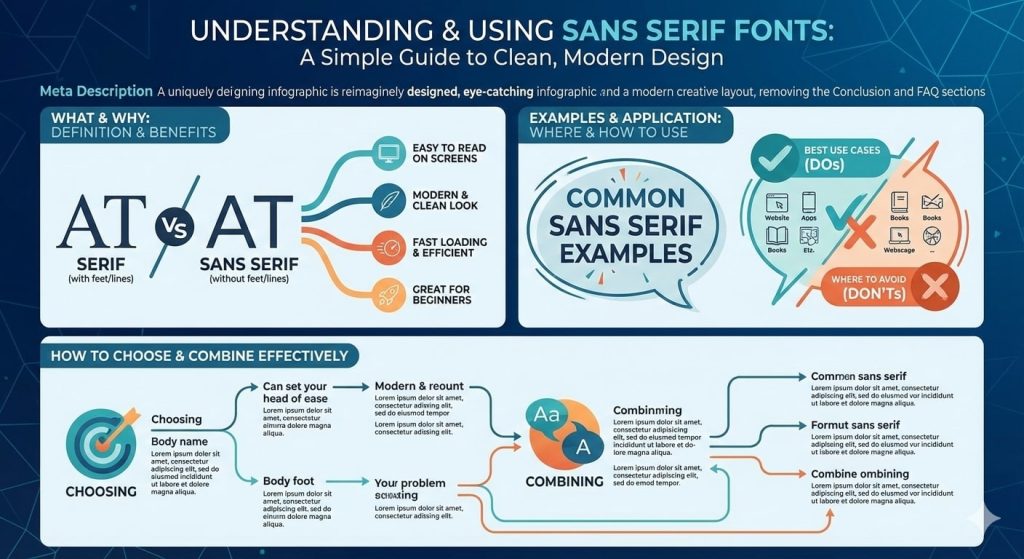
How I Understand Sans Serif Font Examples And Use Them Easily
I think this guide helps you understand sans serif font examples in a simple way so we learn how these fonts look and how we use them to create clean and readable designs easily
I think fonts play a very important role in design and reading. When I started learning about fonts I noticed that some fonts look clean and easy while others feel heavy. Sans serif fonts were the first fonts that helped me understand clean design. I think that if we want our text to look modern and easy then we should learn about sans serif font examples.
In this guide I will share my personal experience and explain everything in a very simple way. We will learn what sans serif fonts are, how they look and where we should use them.
What Are Sans Serif Fonts
I think sans serif fonts are fonts that do not have extra lines at the ends of letters. These fonts look smooth, clean and straight. If you look at letters like A or T you will see that there are no small decorations.
We use sans serif fonts because they are easy to read on screens. Phones, computers and websites mostly use these fonts.
Why Sans Serif Fonts Are So Popular
I think these fonts are popular because they are simple and modern. Many big brands use them because they look professional.
Sans serif fonts are popular because They are easy to read They look clean They work well on screens They feel modern
If we want clear communication then we should use these fonts.
Common Sans Serif Font Examples
I think examples help us understand better. These are some common sans serif fonts that many people use.
Arial Helvetica Verdana Tahoma Calibri Roboto
These fonts are used in websites, apps, documents and mobile screens.
How Sans Serif Fonts Look
I think sans serif fonts look straight and balanced. Letters feel open and friendly. If text is small these fonts still stay readable.
That is why we see them everywhere online.
Where We Should Use Sans Serif Fonts
Websites
Sans serif fonts are best for websites because they load fast and read easily.
Mobile Apps
Phones use these fonts because screens are small.
Presentations
Slides look clean and professional.
Social Media
Text becomes easy to read on posts and banners.
User Interfaces
Menus buttons and labels use these fonts.
Where We Should Avoid Sans Serif Fonts
We should avoid sans serif fonts in Traditional books Formal invitations Classic designs
If the design needs an old style feel then serif fonts are better.
My Personal Experience With Sans Serif Fonts
I think learning from experience helps most. When I first made a website I used a fancy font. Then I changed the font to a sans serif style and everything improved.
Users stayed longer Reading became easy The site looked modern
That is when I understood the power of simple fonts.
How Sans Serif Fonts Help Beginners
I think beginners should start with these fonts.
They are easy to use They look good everywhere They reduce mistakes They teach balance
If you are learning design you should start here.
How To Choose The Right Sans Serif Font
I think we should ask simple questions.
Is it easy to read Does it fit the design Does it look clean Is it simple
If answers are yes then the font is good.
Sans Serif Fonts For Long Text
I think sans serif fonts are good for long text on screens. Blogs, articles and guides look better when text is simple.
Readers do not feel tired Eyes stay relaxed Content feels friendly
Sans Serif Fonts And SEO
I think design affects SEO indirectly.
Good readability Better user time Lower bounce rate More engagement
If users stay longer Google notices that.
How To Combine Sans Serif Fonts
I think combining fonts helps design.
Use one sans serif font for body text Use another for headings
This keeps design clean and interesting.
Are Sans Serif Fonts Free
I think many fonts are free.
Google Fonts offer many options Some fonts need license
We should always check usage rules.
Why Sans Serif Fonts Are Best For Modern Design
I think modern design needs clarity.
Sans serif fonts offer Clean look Simple shapes Fast reading Modern feel
That is why designers love them.
Sans Serif Fonts For Students
I think students should use these fonts.
Notes look clear Assignments read easily Presentations improve
They help with learning.
Sans Serif Fonts For Business
I think businesses need trust.
These fonts look Professional Clear Strong
That is why brands use them.
FAQ
What are sans serif fonts?
They are fonts without extra lines on letters.
Are sans serif fonts easy to read?
Yes they are very easy especially on screens.
Should beginners use sans serif fonts?
Yes they are perfect for beginners.
Are these fonts good for websites?
Yes, most websites use them.
Can we use sans serif fonts everywhere?
They are good for most modern designs.
Conclusion
I think sans serif font examples help us understand modern design in a simple way. We learned what these fonts are, how they look and where we should use them. From my experience I can say that if we want clean, readable and professional designs then sans serif fonts are the best choice.
We should keep designs simple and focus on user comfort. This guide gives you clear information and practical ideas so you can use sans serif fonts with confidence and improve your design work easily.